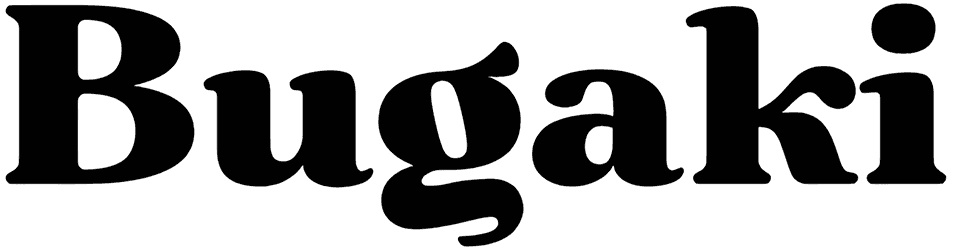
Bugaki Font
There are two styles of the Bugaki font, which allow it to be used in different applications, making it highly versatile. A luxury font like this is ideal when designing t-shirt brands, postcards, wedding invitations, and perhaps even fashion labels.
Using this serif font in your project will save you from the hassle of getting it wrong later, so use it to make your project look good.